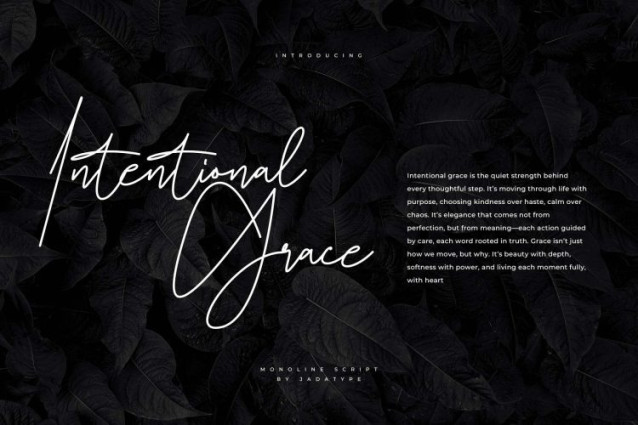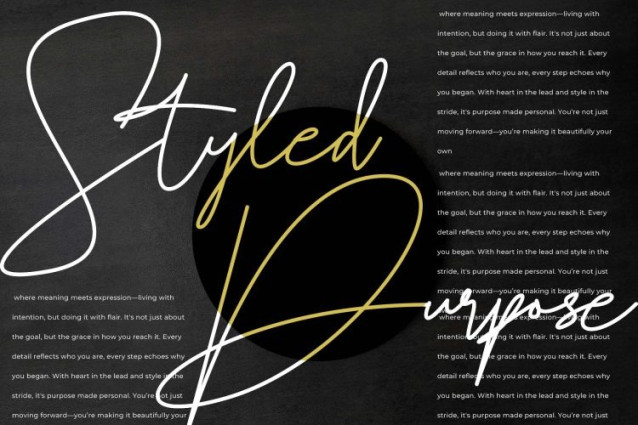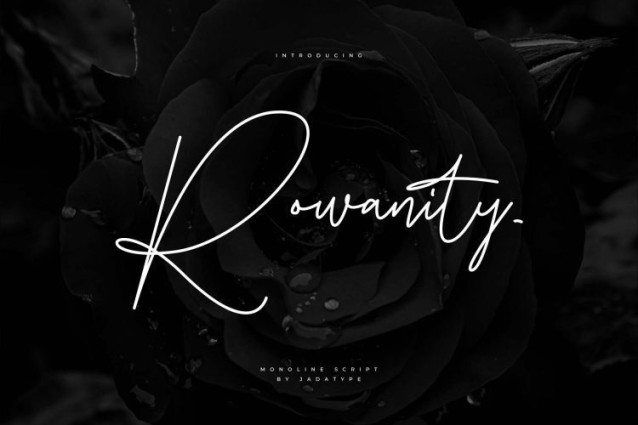
Rowanity Monoline Font
Rowanity Monoline Font is a monoline script with a handwritten style. suitable for social media, logotype, craft, advertisements, and so on. contains standard English letters, numbers, punctuation, and several accents that support multilingualism.